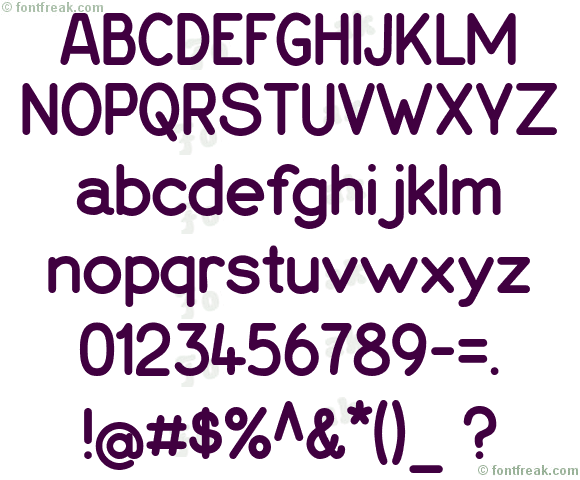
EspressoDolce
EspressoDolce is a delightful sans-serif typeface designed by Peter Wiegel, characterized by its rounded forms and friendly appearance. This font strikes a balance between modern simplicity and a touch of warmth, making it a versatile choice for various design projects. The stroke weight is consistent, providing a clean and approachable look, while the ample spacing between letters enhances readability. The design features subtle curves and playful elements that add character without overwhelming the text.
Ideal use cases for EspressoDolce include wedding invitations, where its inviting style can set a romantic tone. It also shines in restaurant menus, where the rounded letters convey a sense of comfort and approachability, enticing diners to explore the offerings. Additionally, EspressoDolce works well for children's book covers, capturing the whimsical nature of the content. Graphic designers may find it a perfect fit for branding projects, as its friendly vibe can resonate with a wide audience. Small business owners looking to create a welcoming atmosphere in their marketing materials will also appreciate its charm.
The target audience for this font includes graphic designers, small business owners, and content creators seeking a unique typeface that stands out while remaining accessible. With its freeware license, users can easily incorporate the EspressoDolce font into their projects without worry.
What sets EspressoDolce apart is its ability to convey warmth and friendliness while maintaining clarity and professionalism. Its versatility and distinct character make it an excellent addition to any designer's toolkit. For those looking to enhance their creative projects, the EspressoDolce font free download is a fantastic opportunity to bring a unique touch to their designs.